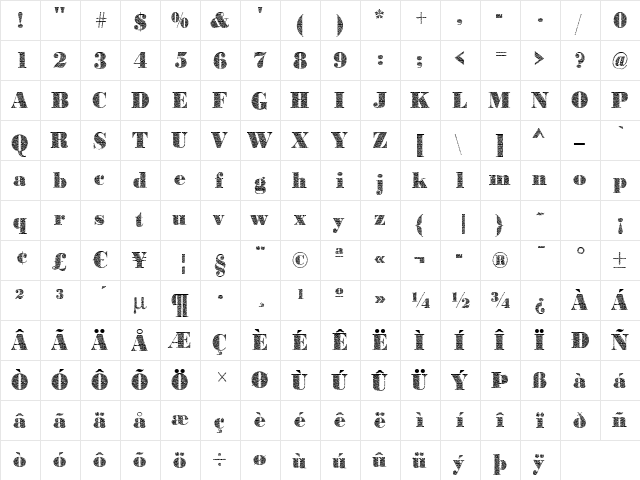
BodoniTriangles2 Regular
Design Context for BodoniTriangles2 Typeface
BodoniTriangles2 takes a measured approach to typography — its balanced proportions and neutral character make it a reliable workhorse for both digital and print work.